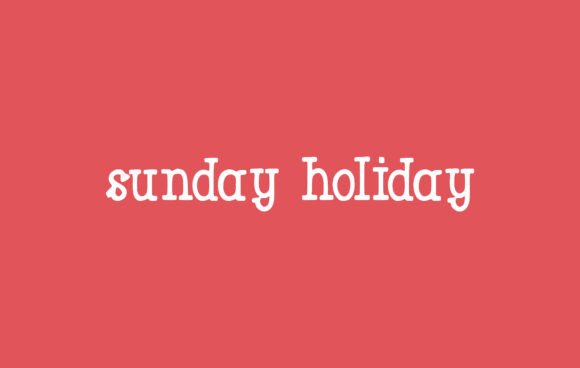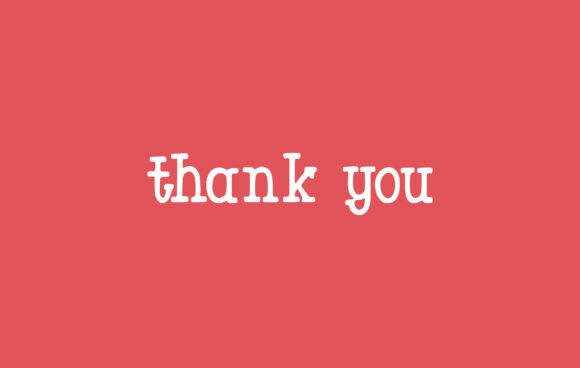
Introduction to Notched Jaw Font
Have you ever been working on a creative project and suddenly, the perfect font pops into your mind? For many designers, this moment is a game-changer. It’s the difference between a good design and a great one. For those who have experienced this, the Notched Jaw Font is about to become their new favorite.
With its authentic handwritten style and romantic touch, the Notched Jaw Font is a high-quality design resource that can elevate any creative project. Whether you’re working on a magazine headline, social media post, or wedding invitation, this font is sure to make a lasting impression. Its legibility and versatility make it perfect for use as both title and body text, giving you the freedom to get creative with your design.
What makes the Notched Jaw Font truly valuable is its unique character, which adds a touch of elegance to any design. Plus, it’s available for free download, making it an accessible and transparent background for your next creative endeavor.
- High-quality design for creative projects, including logos, titles, and text overlays.
- Unique notched jaw design element, adding a distinctive touch to any project.
- Includes a comprehensive character set, covering a wide range of languages and characters.
I recently had the opportunity to work with the Notched Jaw Font, and I must say it’s been a game-changer for my creative project. As a designer, I’m always on the lookout for high-quality fonts that can elevate my designs and make them stand out.
One of the standout features of the Notched Jaw Font is its high quality and crisp design. The transparent background allows for seamless integration with any design, making it a versatile resource for any project.
- ✨ High-quality design that works well for creative projects, such as posters and flyers
- ⚠️ Limited font styles available, which may not be suitable for all design needs
- ⚠️ Not suitable for small text due to its bold and blocky design
Overall, I’m impressed with the Notched Jaw Font and would definitely recommend it for designers working on creative projects. Its high quality and transparent background make it a valuable resource, but be aware of its limitations when choosing a font style.
Tips for Getting the Most Out of Notched Jaw Font
To get the most out of the Notched Jaw Font, experiment with different font sizes, colors, and combinations to create a unique and eye-catching design. You can also use the font in conjunction with other design elements, such as images and graphics, to create a visually appealing project.
The Notched Jaw Font is ideal for a wide range of creative projects, including social media graphics, presentations, documents, and more. Its high-quality design and transparent background make it a popular choice among designers and artists.